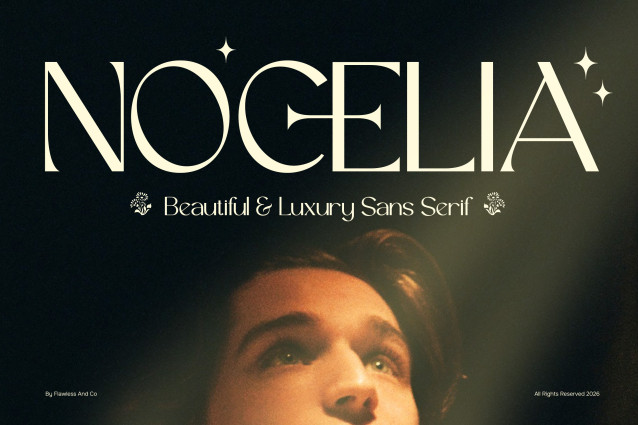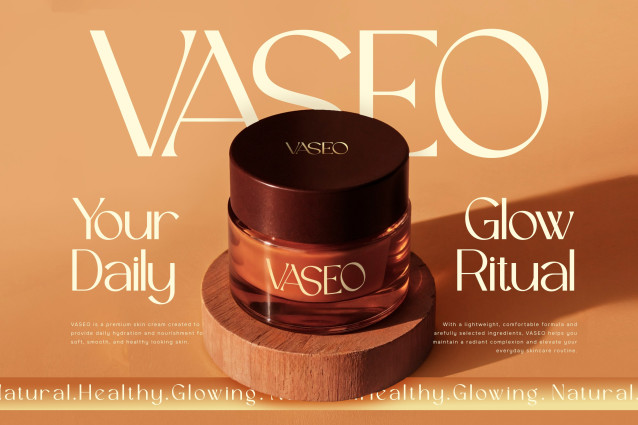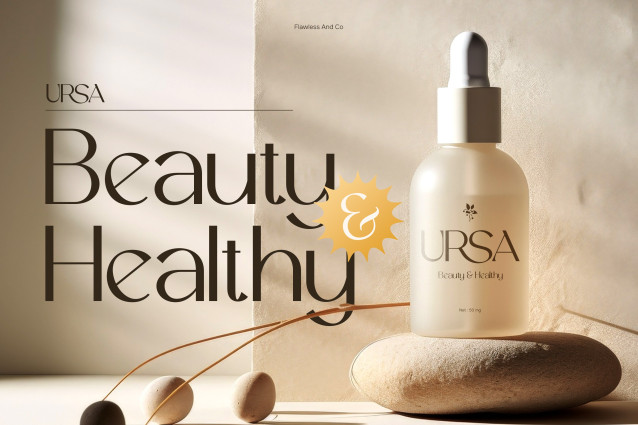
Nocelia – Sans Serif Font
Nocelia is a luxury and beautiful sans serif font that celebrates modern elegance through simplicity and refined design. With its graceful letterforms, clean lines, and beautifully balanced proportions, Nocelia creates a sophisticated visual identity that feels both contemporary and timeless. Every character is carefully crafted to deliver a premium aesthetic, making it the perfect choice for brands that value elegance, confidence, and understated luxury.